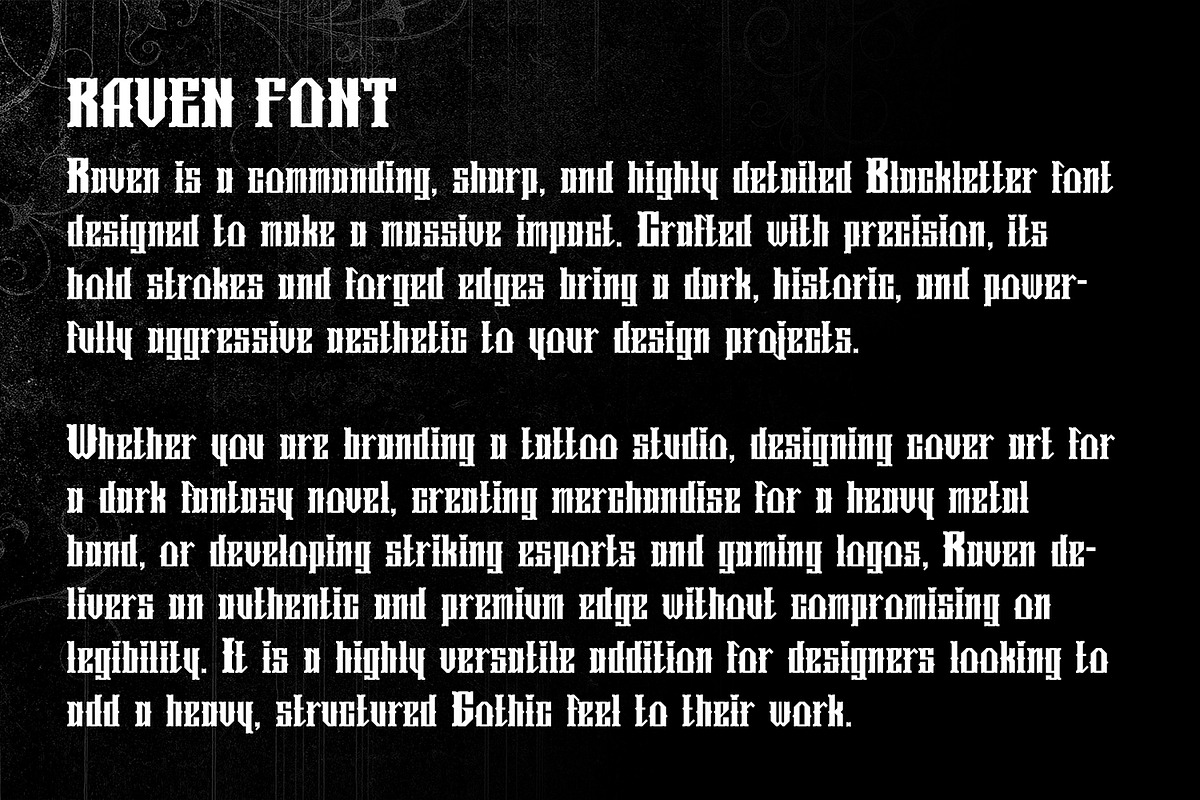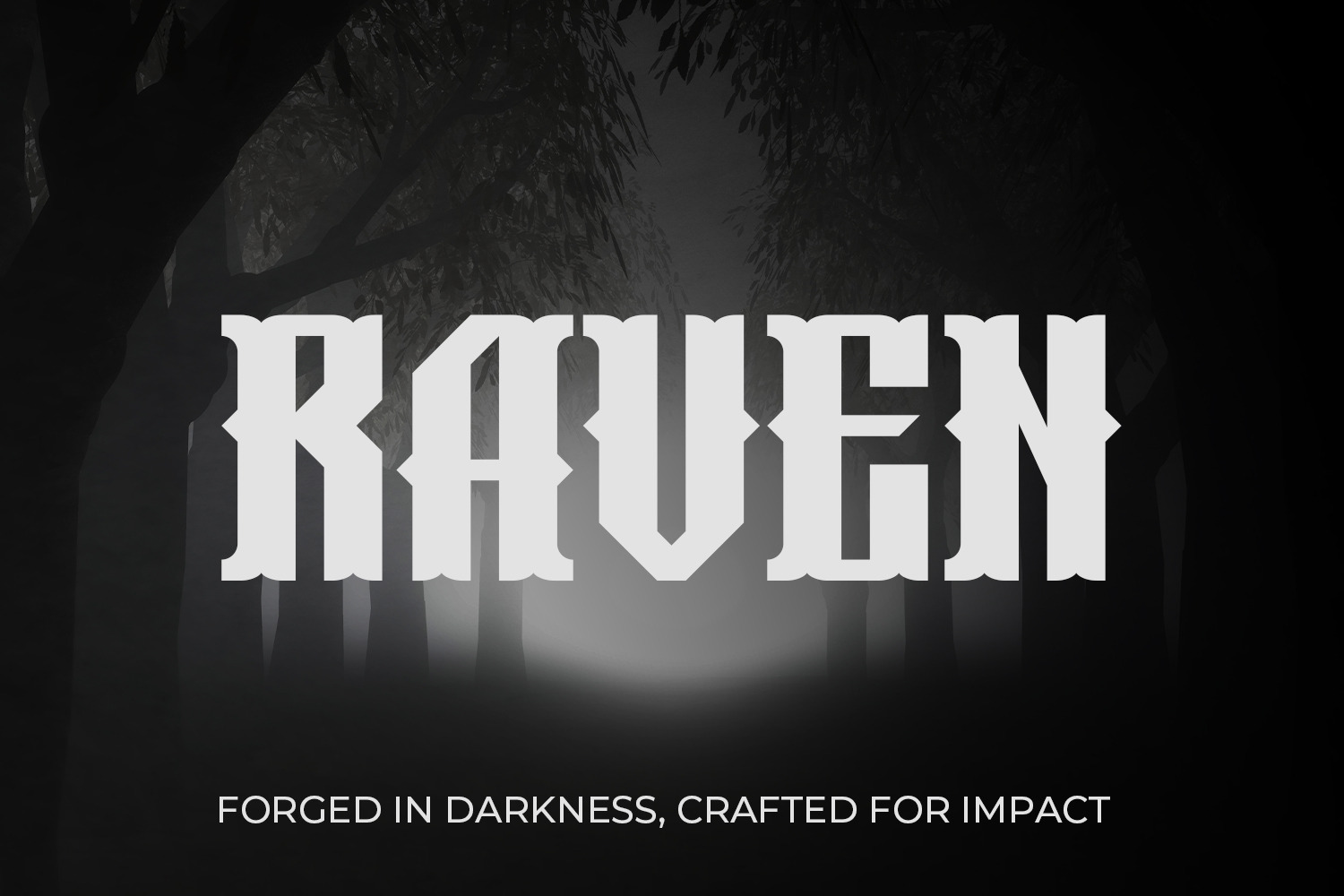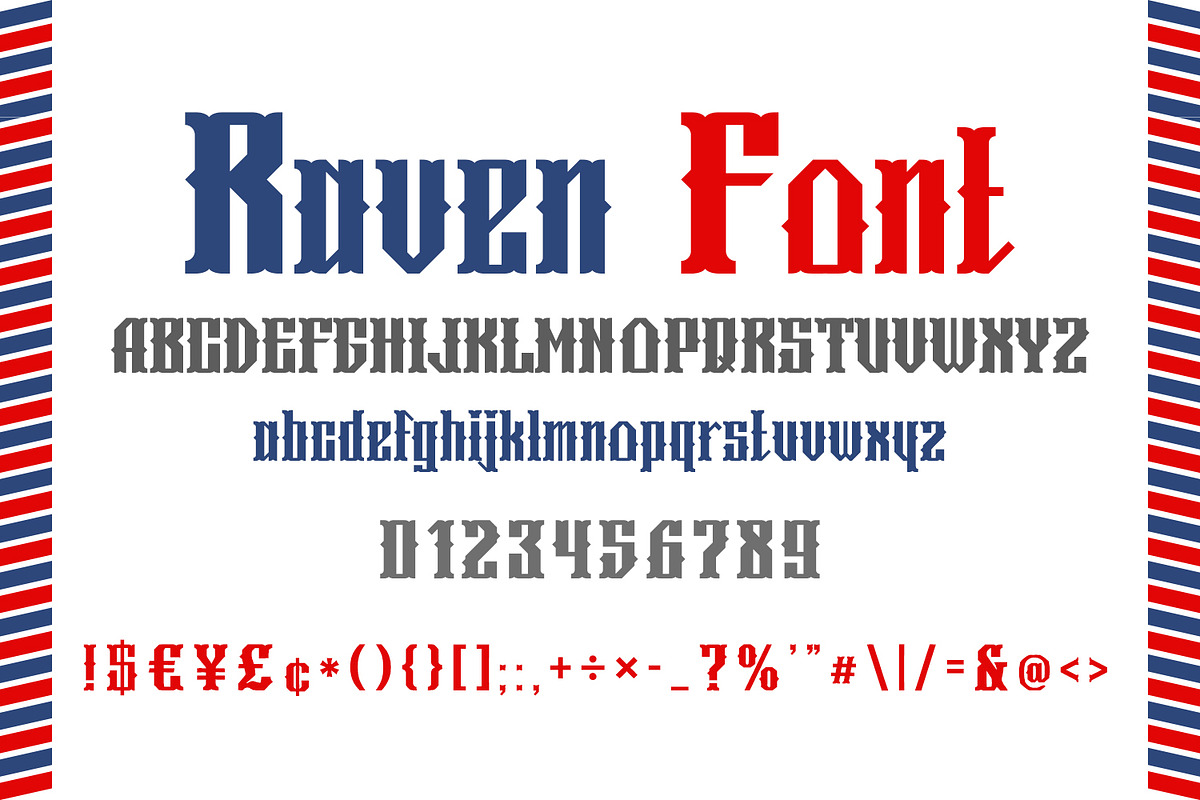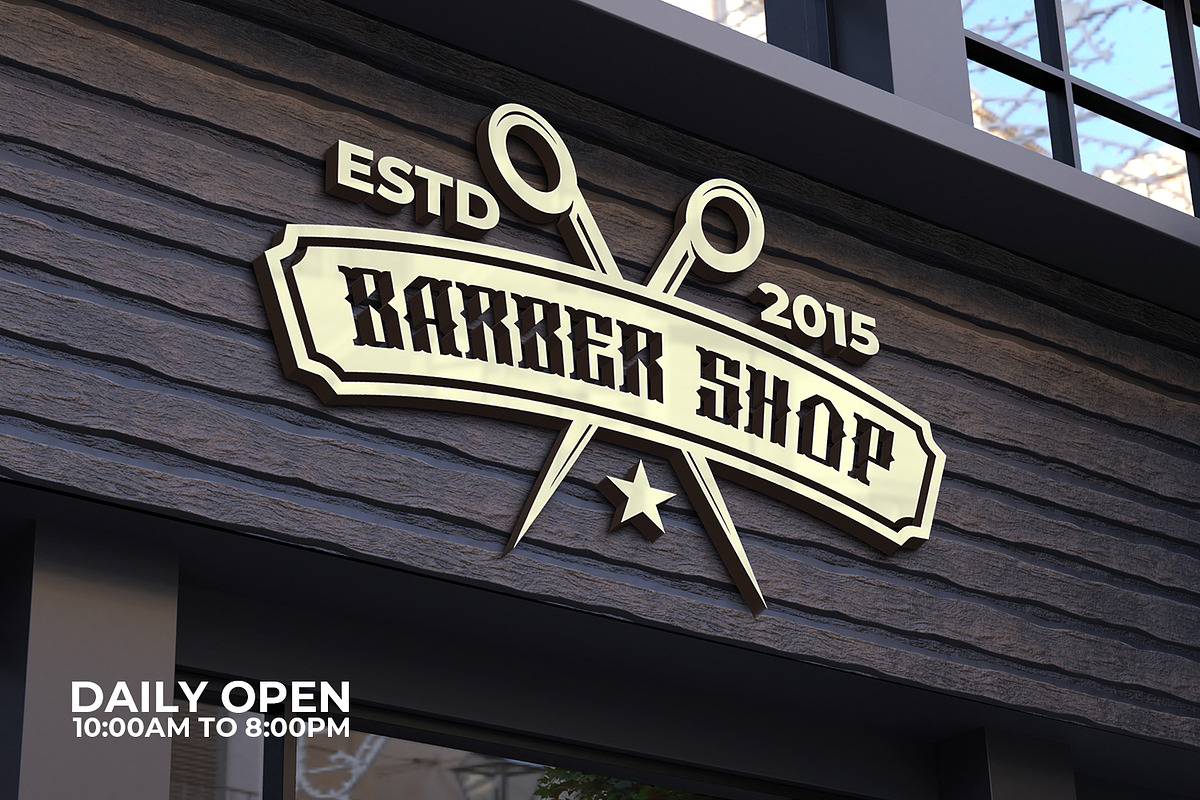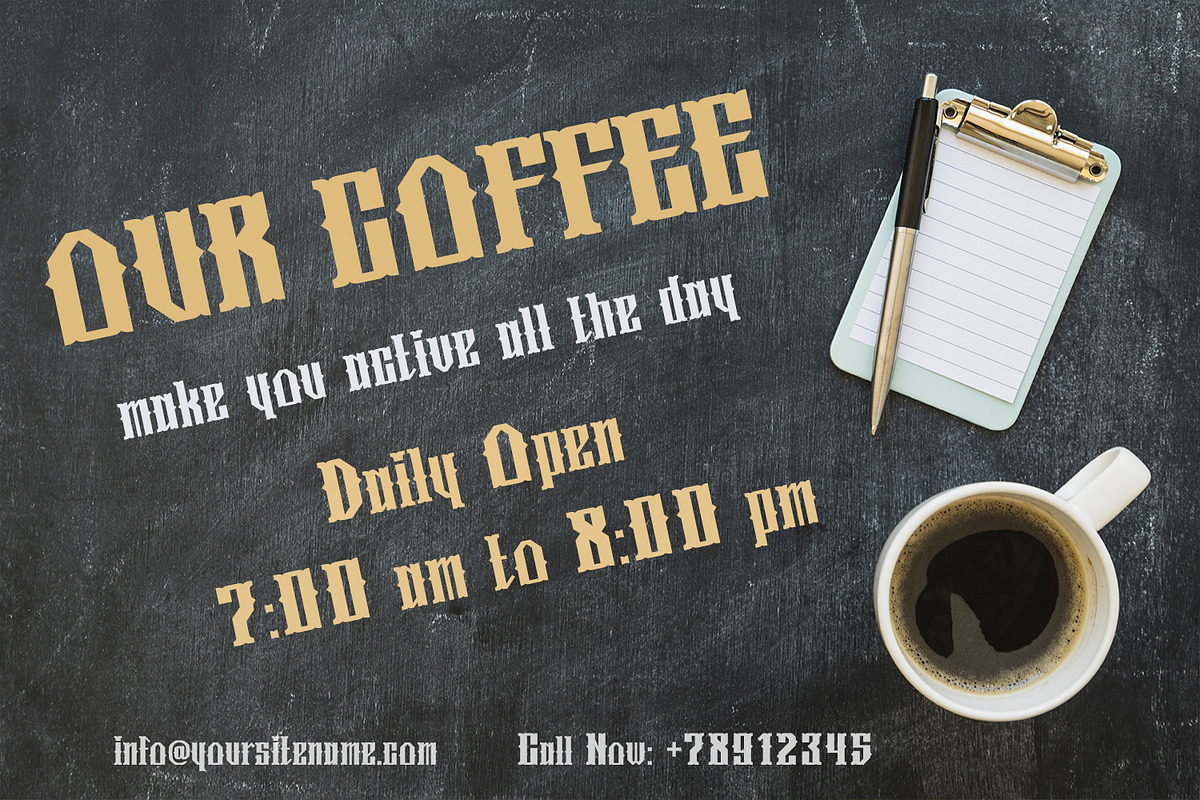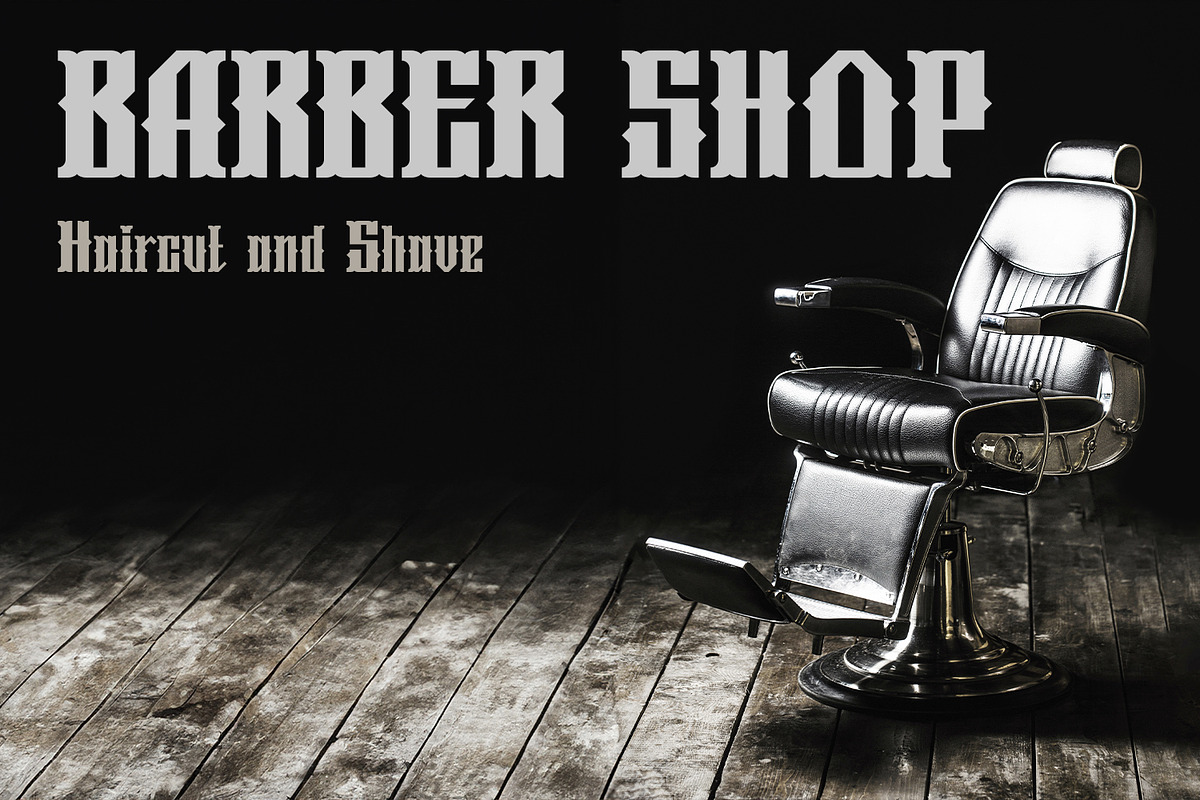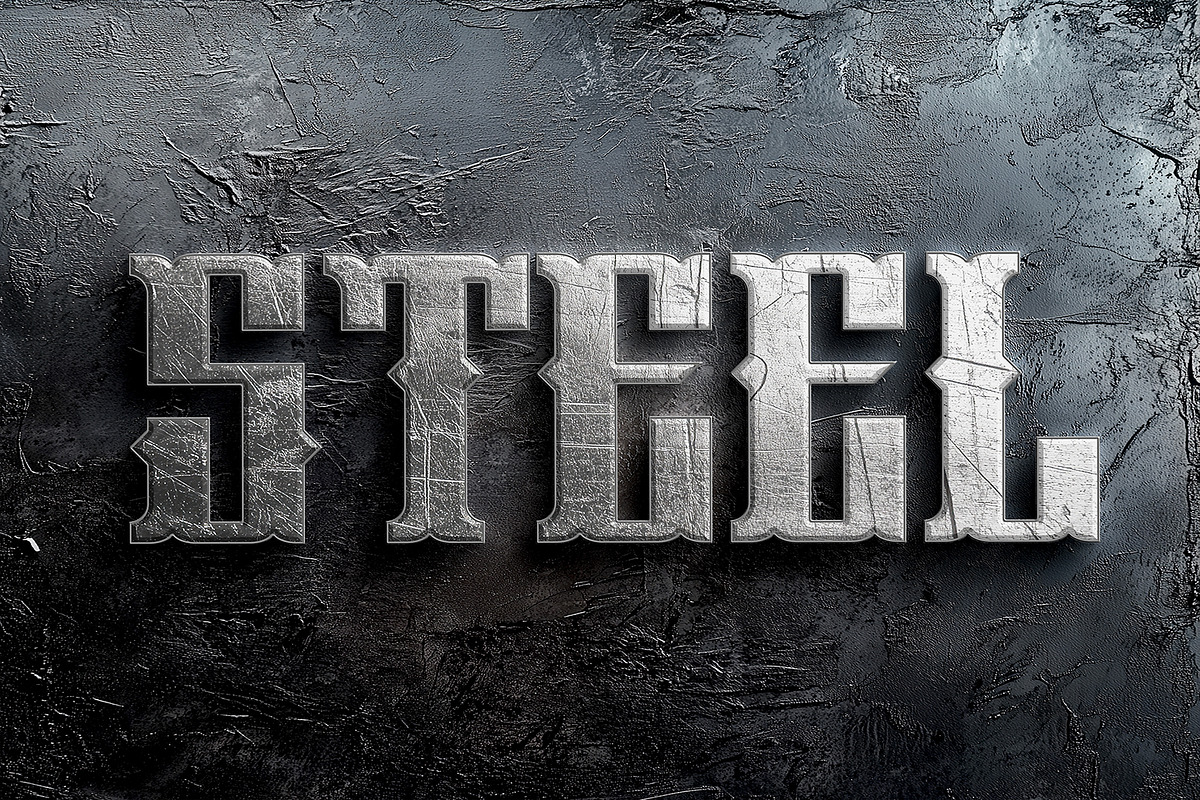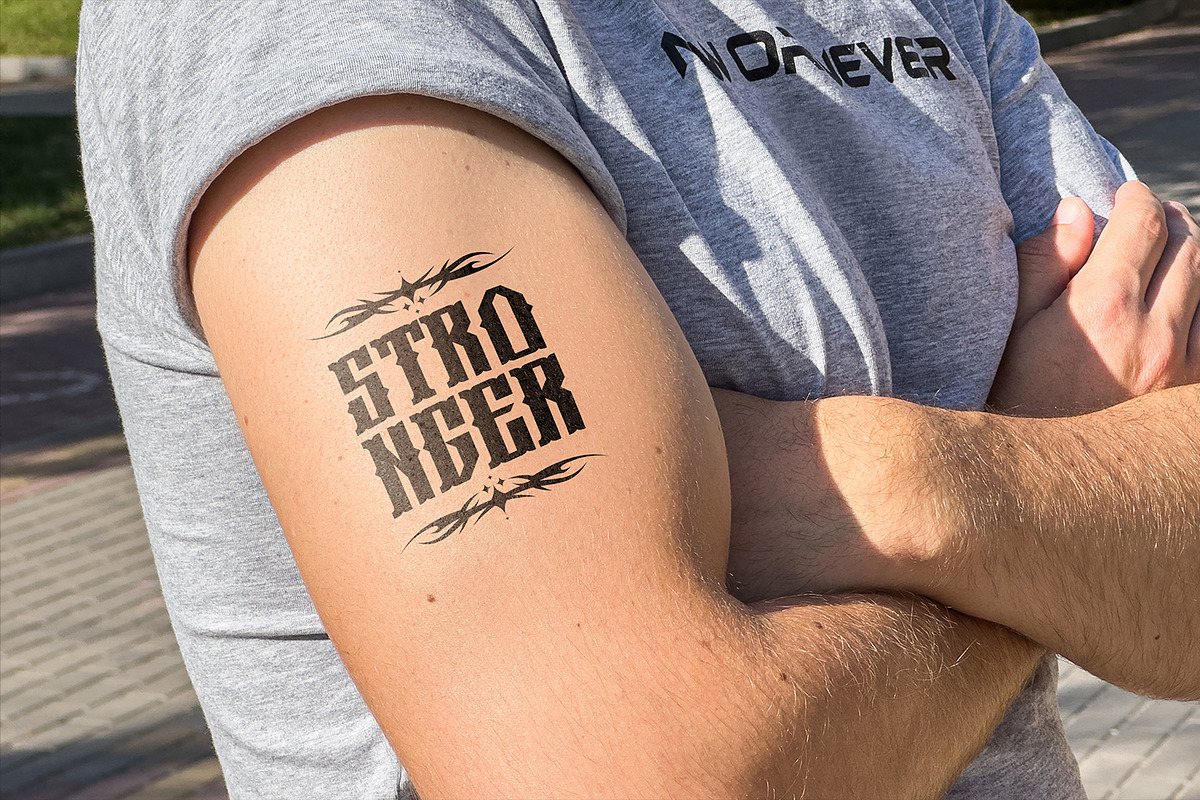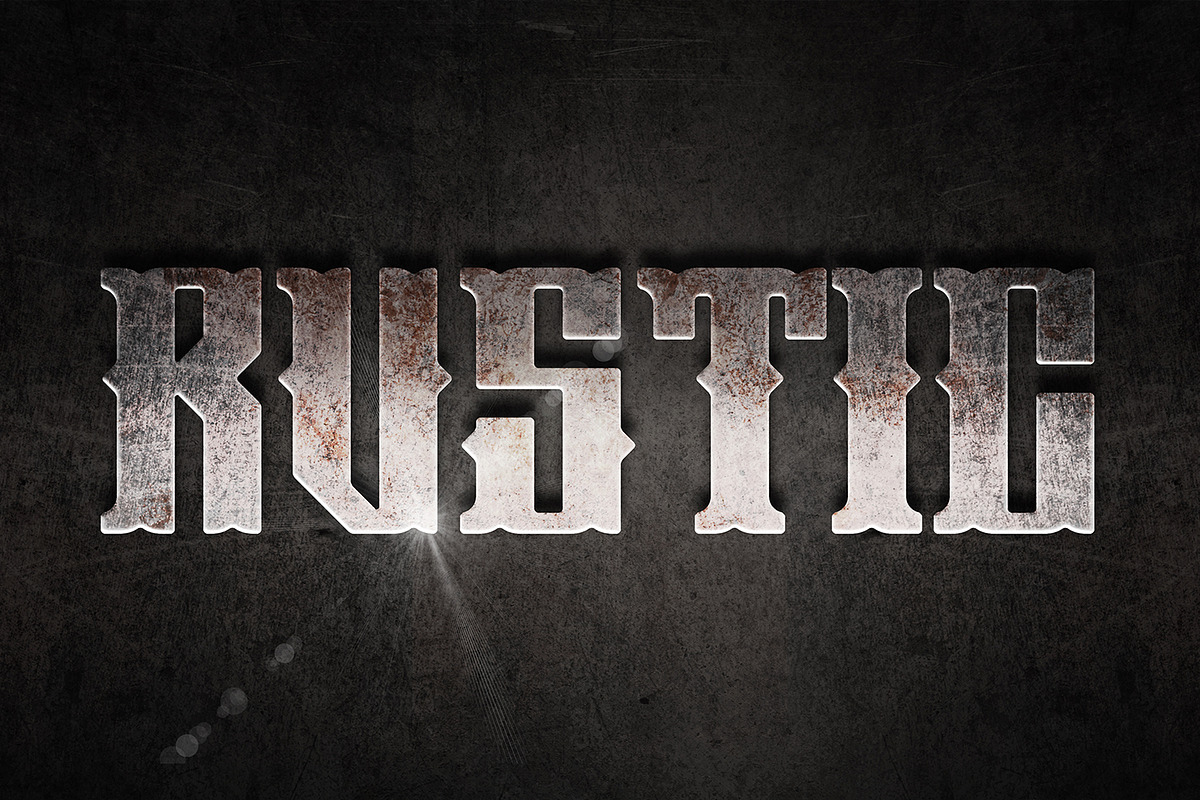
Raven Gothic Blackletter Font
Raven is a commanding, sharp, and highly detailed Blackletter font designed to make a massive impact. Crafted with precision, its bold strokes and forged edges bring a dark, historic, and powerfully aggressive aesthetic to your design projects.
Whether you are branding a tattoo studio, designing cover art for a dark fantasy novel, creating merchandise for a heavy metal band, or developing striking esports and gaming logos, Raven delivers an authentic and premium edge without compromising on legibility. It is a highly versatile addition for designers looking to add a heavy, structured Gothic feel to their work.
Uppercase & Lowercase Characters
Numerals & Standard Punctuation
Extended Special Characters (including £, ¥, €, ¢, mathematical symbols, and brackets)